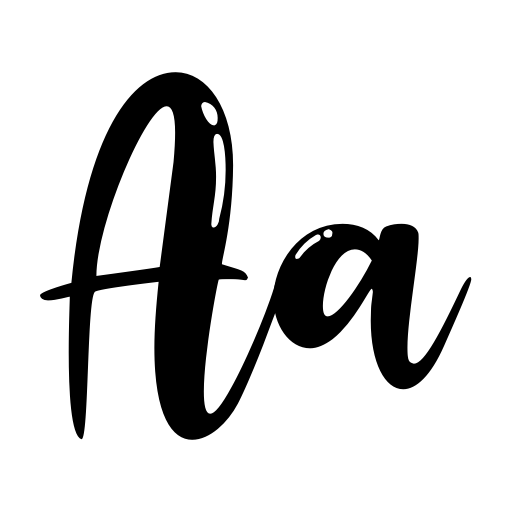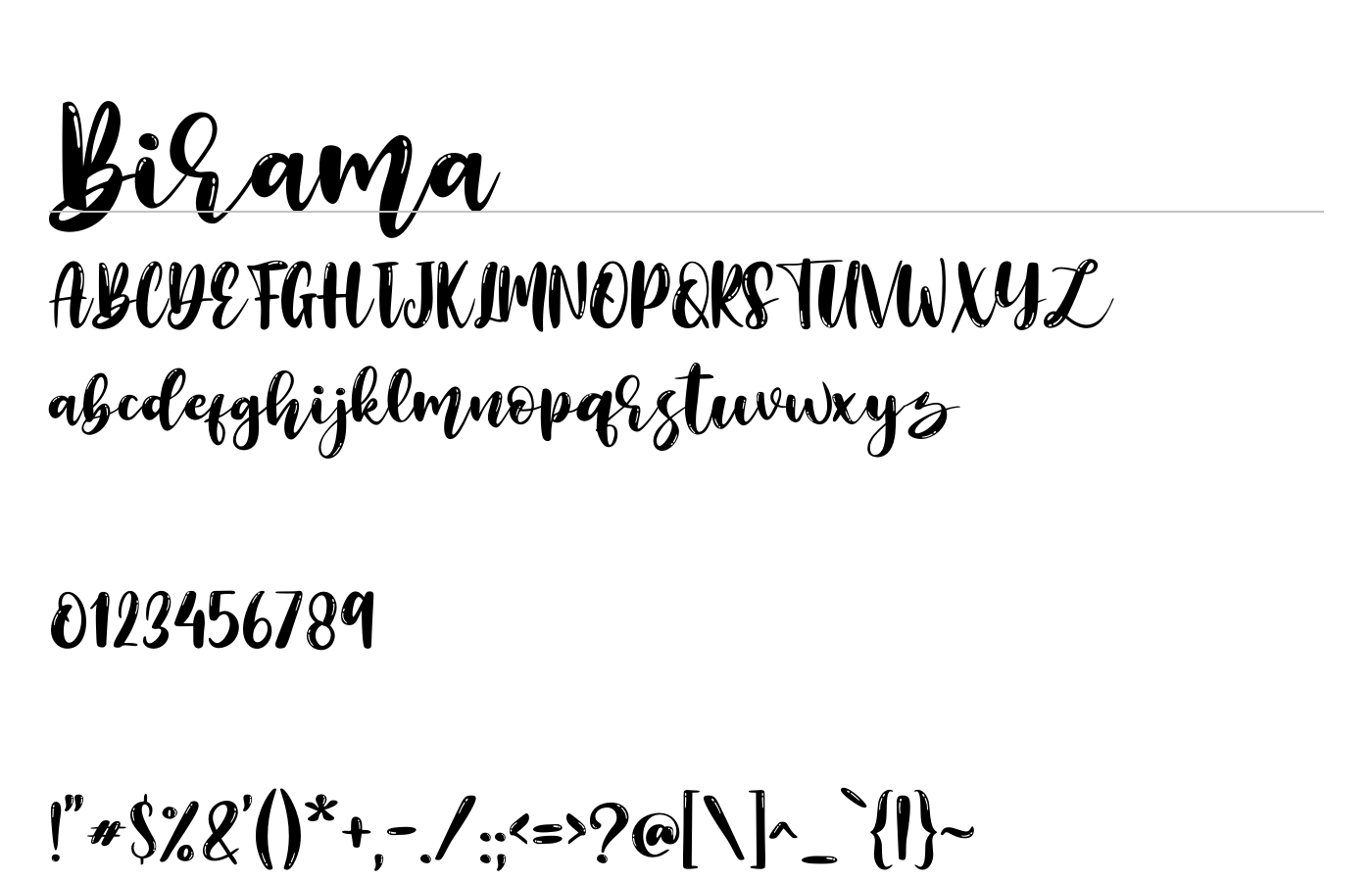
Birama is a stylish, brush-script font with a lively and flowing character that combines bold strokes with delicate swashes, giving it a hand-painted feel. Its medium contrast and energetic letterforms make it perfect for creative branding, invitations, and expressive headlines where a personal, artistic touch is desired. This font works beautifully in designs that aim to convey warmth, elegance, and a modern handcrafted vibe.
Birama Font
About Birama Font